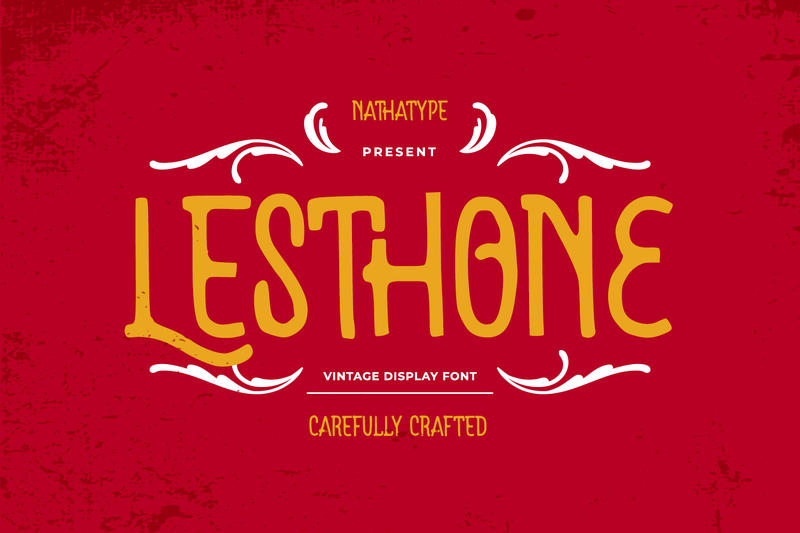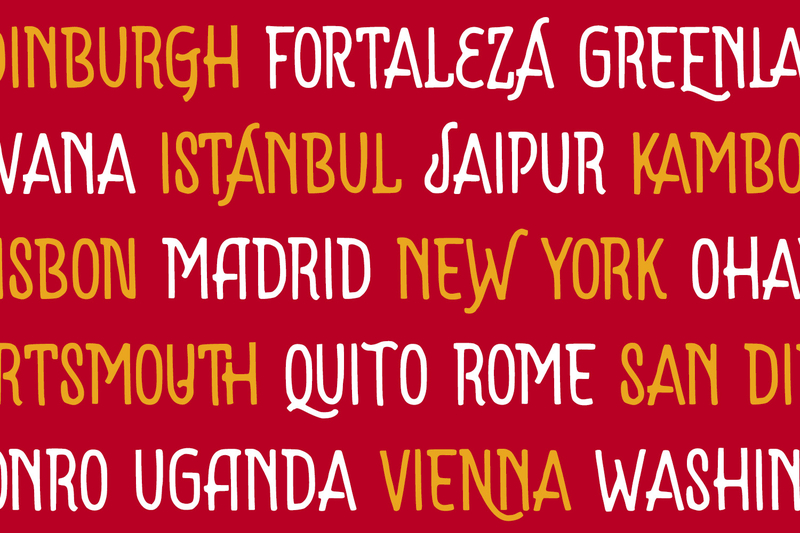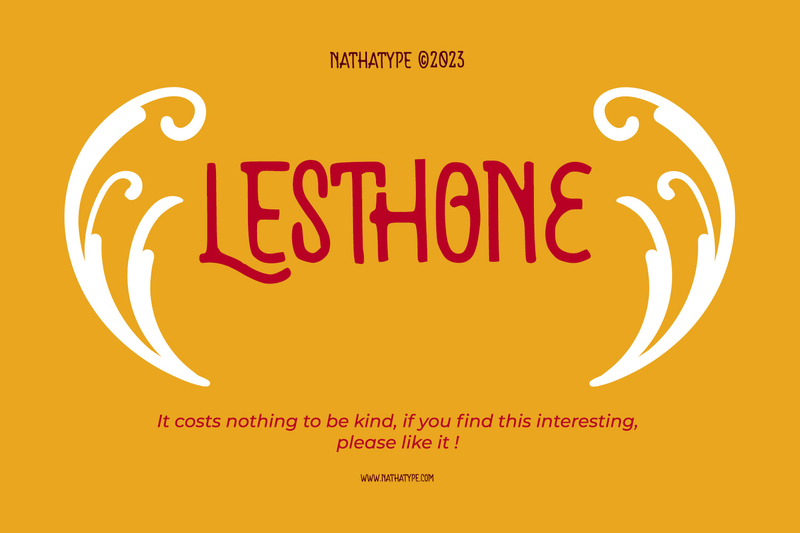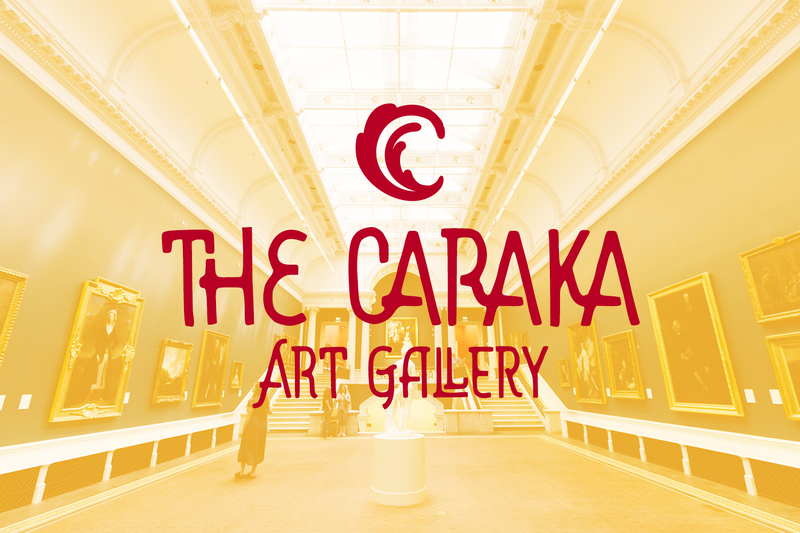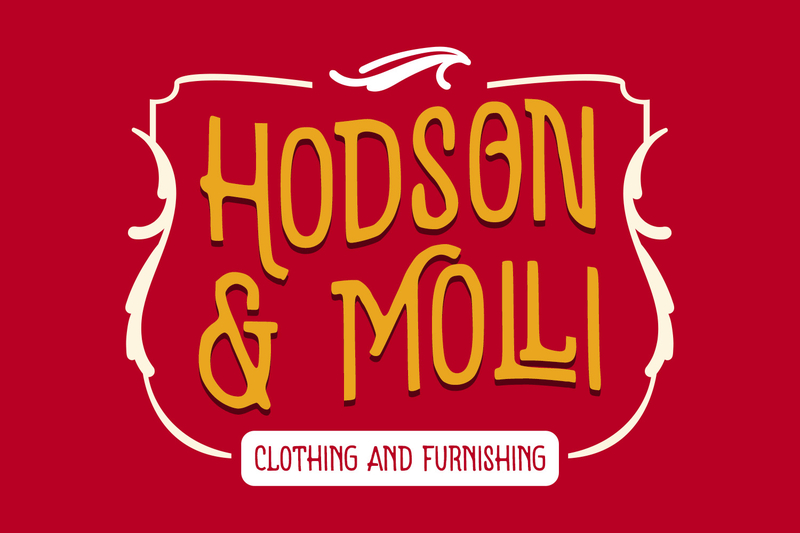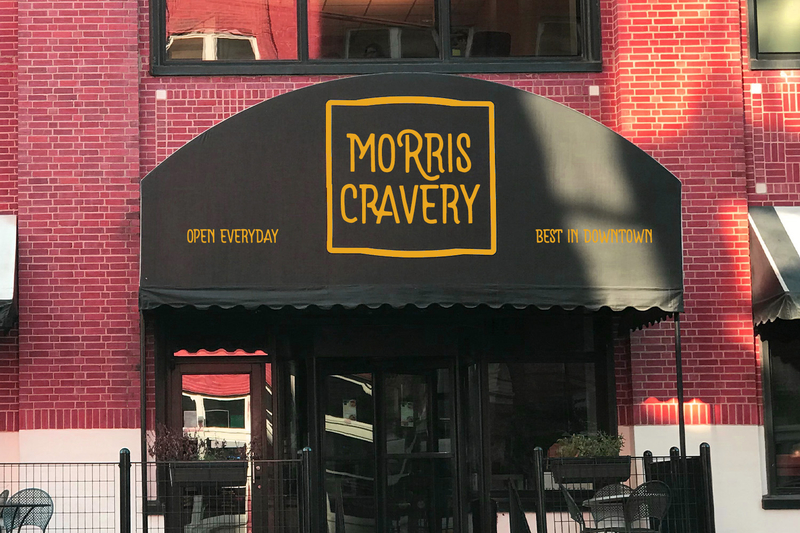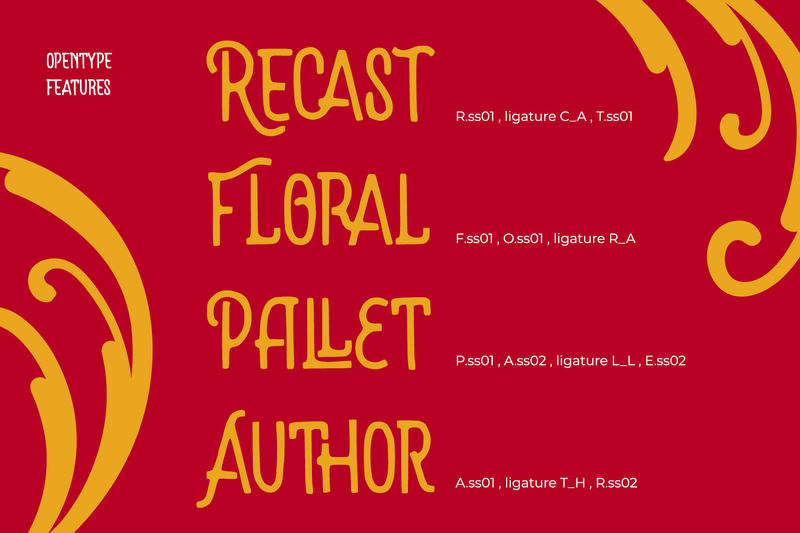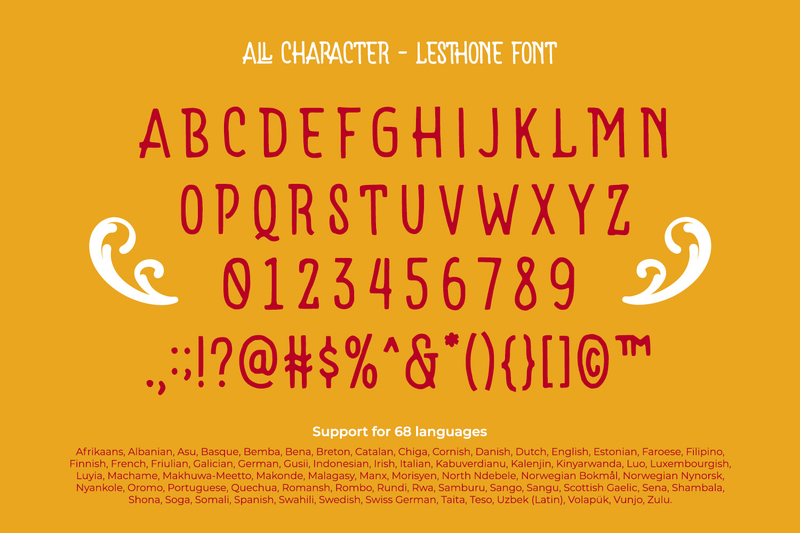
Lesthone is a display font that seamlessly merges vintage aesthetics with modern elegance. The rounded shapes of Lesthone contribute to its friendly and approachable demeanor. On the other hand, the most standout characteristic of this font is its slightly rough texture. This subtle grainy quality imparts a sense of authenticity and depth to your text, creating visual interest and adding a rustic charm that harks back to days gone by.
The uneven proportions of Lesthone further enhance its uniqueness. Each letter has its own personality, and this irregularity contributes to the font’s handcrafted appeal. It’s a reminder that not everything perfect is beautiful; sometimes, it’s the quirks that make something truly captivating. Beautiful ornaments are included as a bonus. Enjoy the features here.
- Alternates
- Multilingual Supports
Lesthone fits in headlines, logos, posters, flyers, branding materials, print media, editorial layouts, and many more. Find out more ways to use this font by taking a look at the font preview.